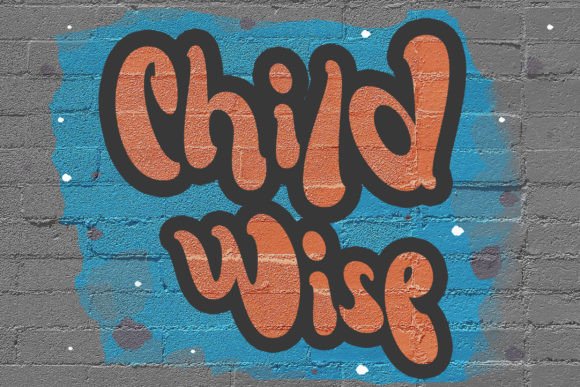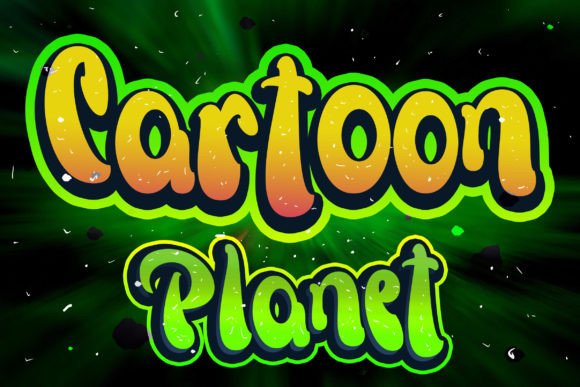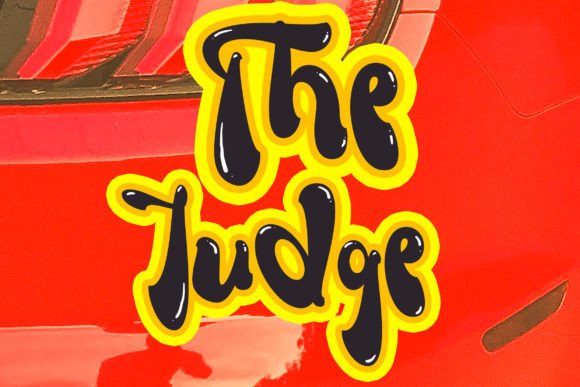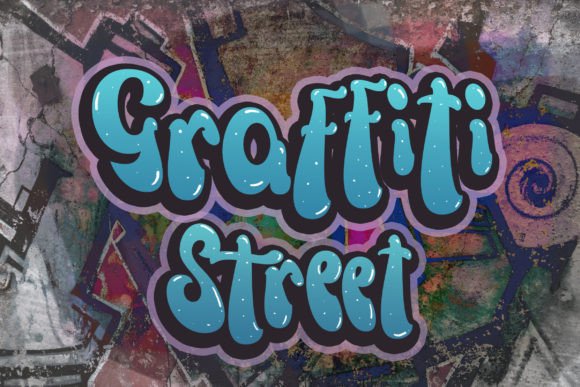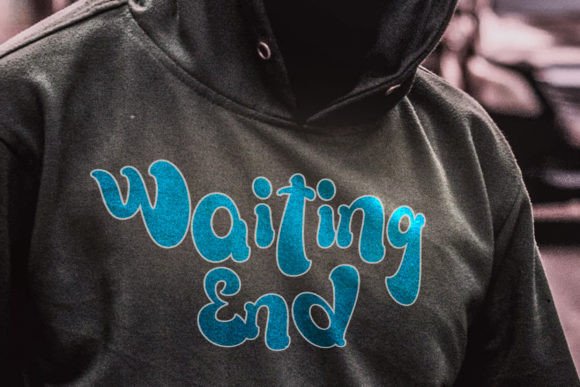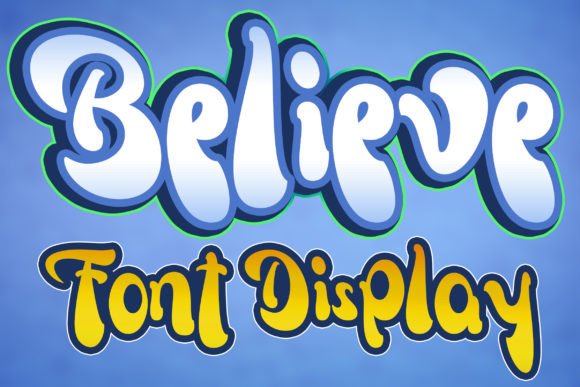
Introducing Believe Font: The Ultimate Retro-Styled Display Font
Are you tired of using the same old fonts in your designs? Do you want to add a touch of nostalgia and boldness to your creations? Look no further than Believe Font, a retro-styled and bold display font that’s sure to elevate your font library and take your designs to the next level.
What is Believe Font?
Believe Font is a masterfully designed display font that’s perfect for a wide range of creative projects. Its retro style and bold aesthetic make it an ideal choice for designers, crafters, and anyone looking to add a unique touch to their work. Whether you’re creating a logo, poster, or social media graphic, Believe Font is sure to make a statement.
Key Features of Believe Font
- Retro-Styled: Believe Font has a classic, nostalgic feel that’s perfect for designers who want to add a touch of vintage flair to their work.
- Bold Display Font: With its bold and eye-catching design, Believe Font is sure to grab attention and make your creations stand out.
- Versatile: Believe Font can be used for a wide range of topics and projects, from logos and posters to social media graphics and more.
- Easily Readable: Despite its bold design, Believe Font is easy to read and understand, making it perfect for use in a variety of creative projects.
Why Choose Believe Font?
So why choose Believe Font over other display fonts on the market? For starters, its unique retro style and bold aesthetic make it a standout choice for designers who want to add a touch of nostalgia and personality to their work. Additionally, Believe Font is incredibly versatile, making it perfect for use in a wide range of creative projects.
How to Use Believe Font
Believe Font is easy to use and can be incorporated into a variety of creative projects. Here are a few ideas to get you started:
- Logos: Use Believe Font to create a bold and eye-catching logo for your business or brand.
- Posters: Create a stunning poster with Believe Font that’s sure to grab attention and make a statement.
- Social Media Graphics: Use Believe Font to create eye-catching social media graphics that will help your brand stand out.
- Signage: Believe Font is perfect for use in signage, whether you’re creating a sign for your business or a event.
Tips for Getting the Most Out of Believe Font
Here are a few tips for getting the most out of Believe Font:
- Experiment with Colors: Believe Font looks great in a variety of colors, so don’t be afraid to experiment and find the perfect hue for your project.
- Play with Sizes: Believe Font is bold and eye-catching, so try playing with different sizes to add emphasis and create visual interest.
- Combine with Other Fonts: Believe Font pairs well with a variety of other fonts, so try combining it with other fonts to create a unique and visually appealing design.
In conclusion, Believe Font is a retro-styled and bold display font that’s sure to elevate your font library and take your designs to the next level. With its versatile design, easily readable text, and bold aesthetic, Believe Font is perfect for use in a wide range of creative projects. Whether you’re a designer, crafter, or simply someone who loves to create, Believe Font is a must-have font that’s sure to become a true favorite.